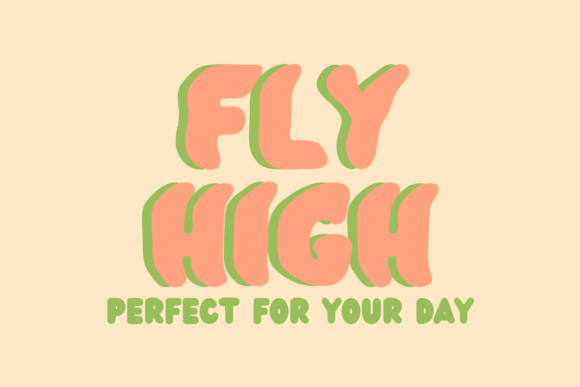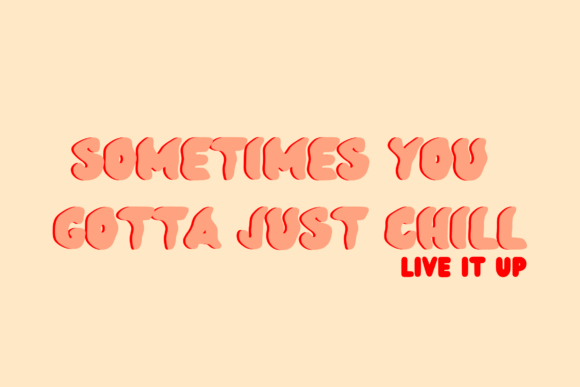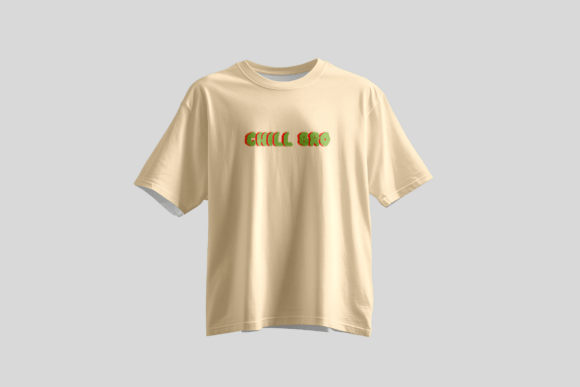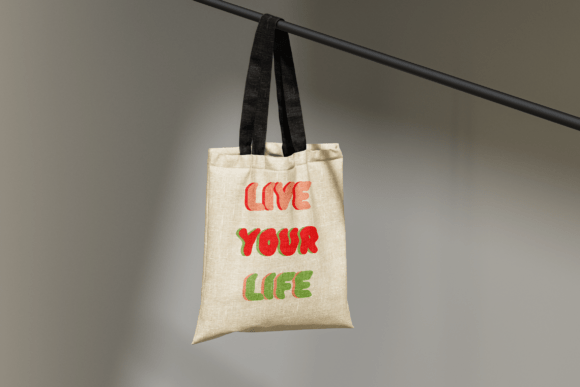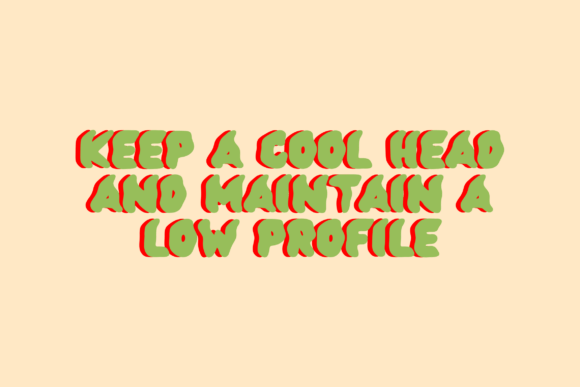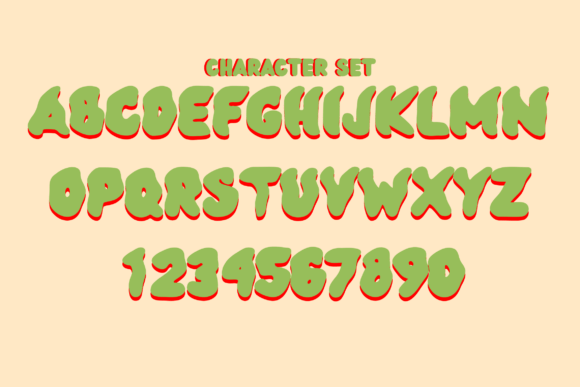
Bubble Wavy Font: Adding a Touch of Whimsy to Your Designs
Immerse yourself in the creatively crafted world of Bubble Wavy Font, a lively, dynamic typeface that promises to infuse energy in every word penned. With its round, bubbly letterforms and unique undulating appeal, this font perfectly encapsulates the spirit of playfulness. It’s a magical tool for every designer, lending itself beautifully to stunning posters, eye-catching branding, captivating social media graphics, and delightful children’s books.
The Unique Charm of Bubble Wavy Font
The synergy of smooth curves and groovy waves makes Bubble Wavy Font a standout addition to any creative project. Its distinctive wavy lines add a touch of whimsy and fun to any text, making it perfect for designs that require a playful and youthful vibe. Whether you’re creating a poster for a music festival, a brand identity for a children’s toy company, or a social media graphic for a fashion brand, Bubble Wavy Font is sure to make your designs pop.
Design Possibilities with Bubble Wavy Font
Bubble Wavy Font is an incredibly versatile typeface that can be used in a wide range of design applications. Here are some ideas to get you started:
- Posters and Flyers: Create eye-catching posters and flyers for events, concerts, and festivals with Bubble Wavy Font. Its bold and playful design is sure to grab attention and leave a lasting impression.
- Branding and Identity: Use Bubble Wavy Font to create a unique and memorable brand identity for your business. Its fun and youthful vibe makes it perfect for brands that want to appeal to a younger audience.
- Social Media Graphics: Add a touch of personality to your social media graphics with Bubble Wavy Font. Its dynamic design is sure to make your posts stand out in a crowded feed.
- Children’s Books: Create delightful and engaging children’s books with Bubble Wavy Font. Its playful design is sure to captivate young readers and make your book a favorite.
The Benefits of Using Bubble Wavy Font
Bubble Wavy Font offers a range of benefits for designers and crafters, including:
- Unique Design: Bubble Wavy Font has a distinctive and unique design that sets it apart from other typefaces. Its wavy lines and round letterforms make it a standout addition to any design.
- Playful Vibe: Bubble Wavy Font has a playful and youthful vibe that makes it perfect for designs that require a fun and energetic feel.
- Versatility: Bubble Wavy Font is an incredibly versatile typeface that can be used in a wide range of design applications.
- Easy to Read: Despite its playful design, Bubble Wavy Font is easy to read and understand, making it perfect for body text and headings.
Tips for Using Bubble Wavy Font
Here are some tips for using Bubble Wavy Font in your designs:
- Use it sparingly: While Bubble Wavy Font is a beautiful typeface, it can be overwhelming if used excessively. Use it sparingly to add a touch of whimsy to your designs.
- Pair it with a neutral font: Pair Bubble Wavy Font with a neutral font to create a striking contrast and add visual interest to your designs.
- Experiment with colors: Bubble Wavy Font looks great in a range of colors, so don’t be afraid to experiment and find the perfect hue for your design.
- Have fun: Most importantly, have fun with Bubble Wavy Font! Its playful design is sure to bring a smile to your face and inspire your creativity.
Bubble Wavy Font is a magical tool for designers and crafters, offering a unique and playful way to add energy and whimsy to any design. Its versatility, unique design, and playful vibe make it perfect for a wide range of design applications, from posters and branding to social media graphics and children’s books. So why not indulge in Bubble Wavy Font and make your designs bubble with life?